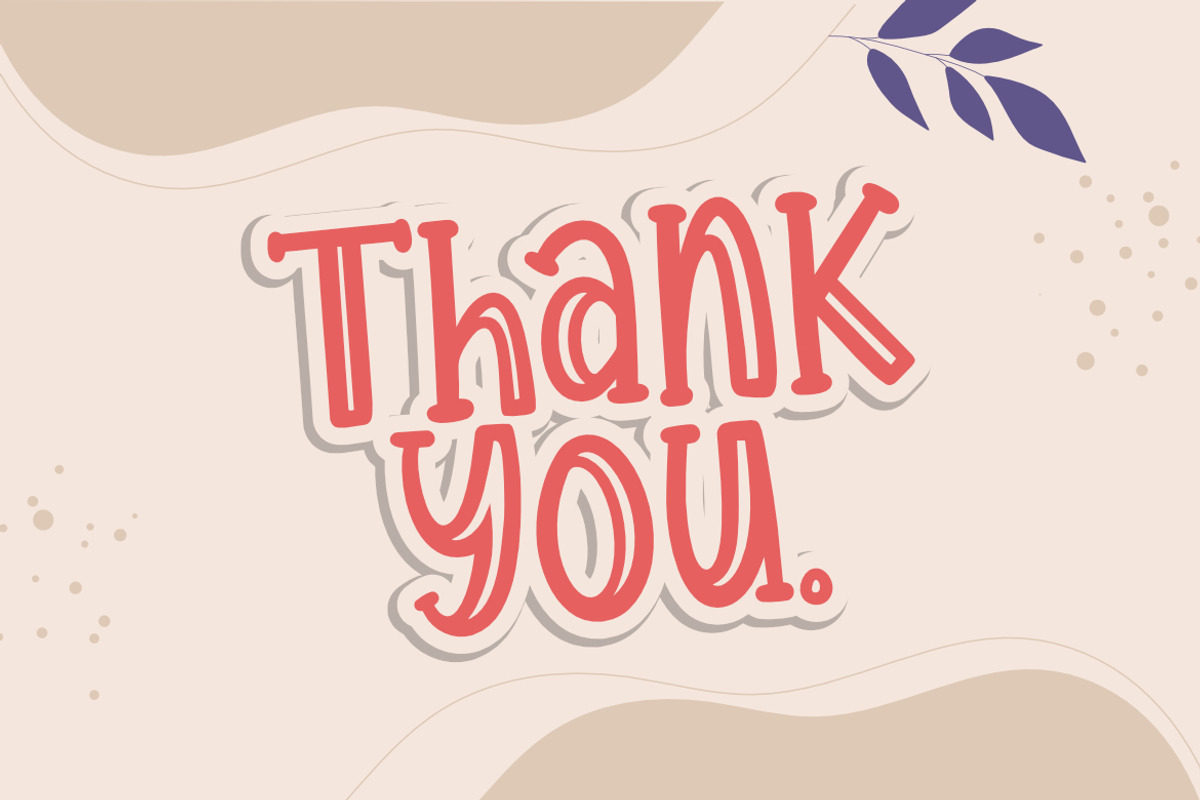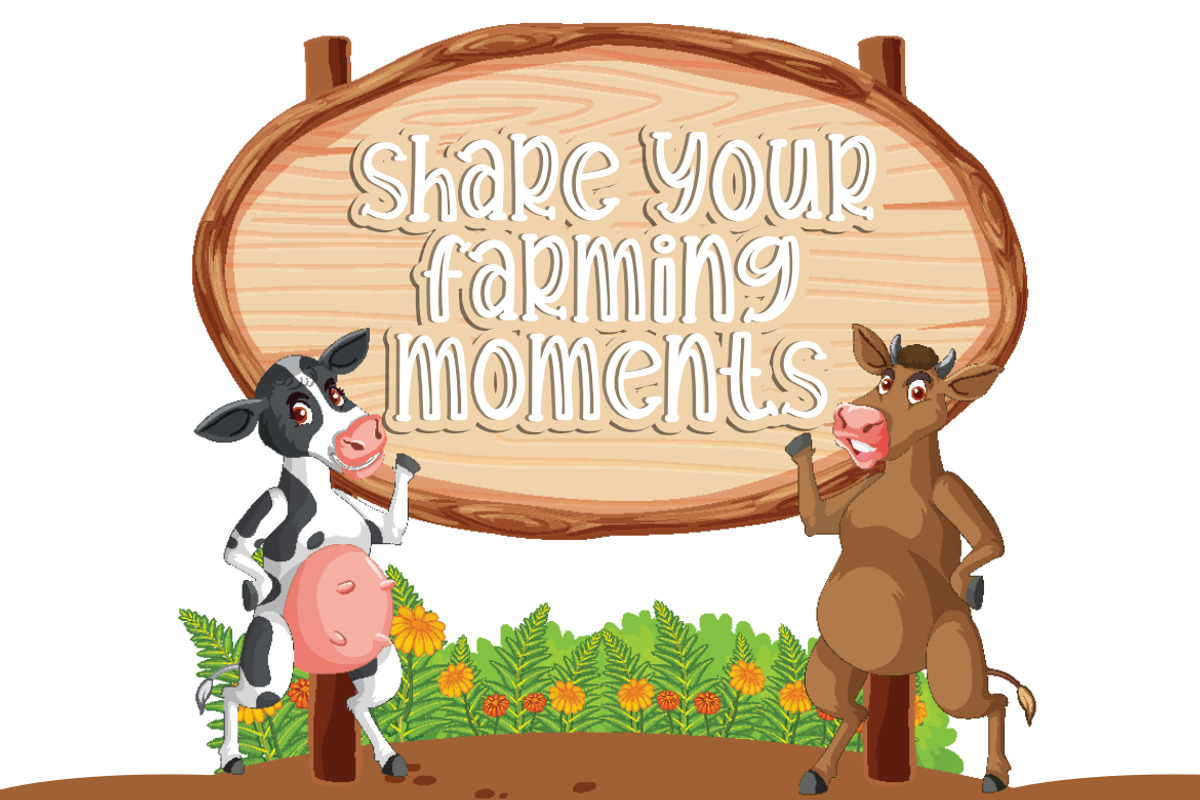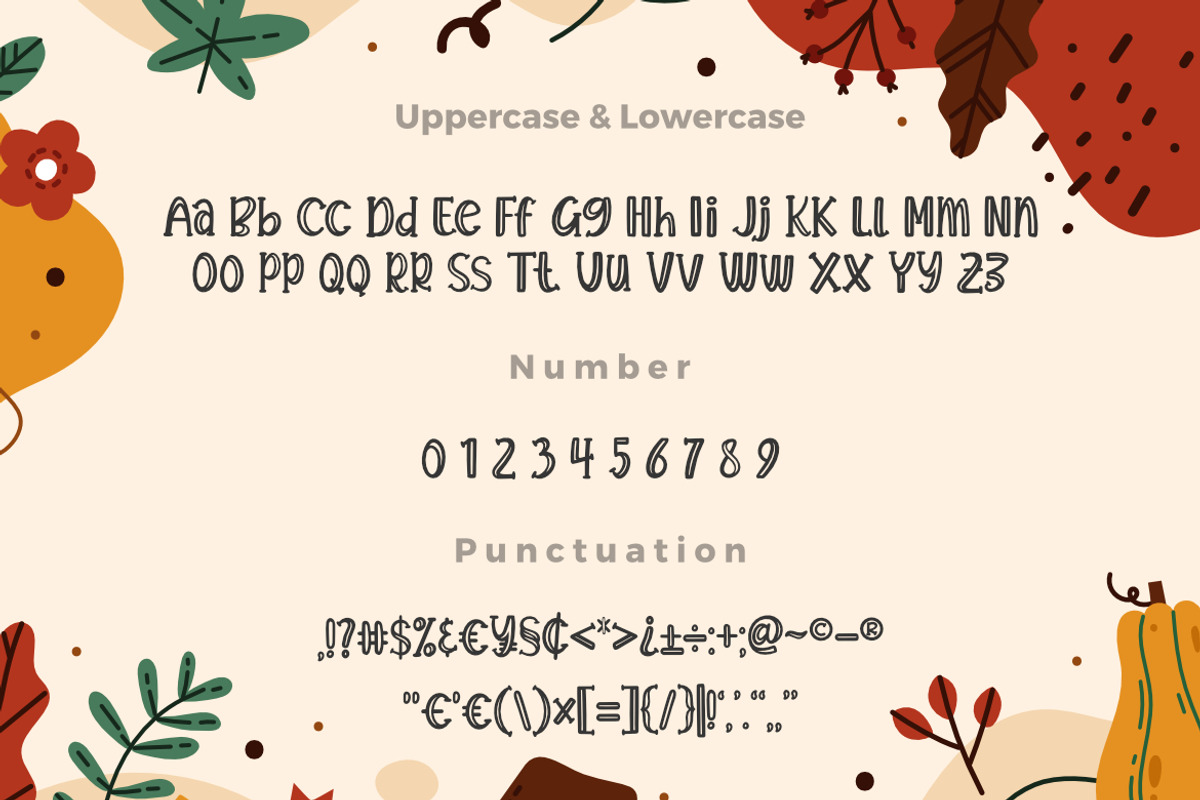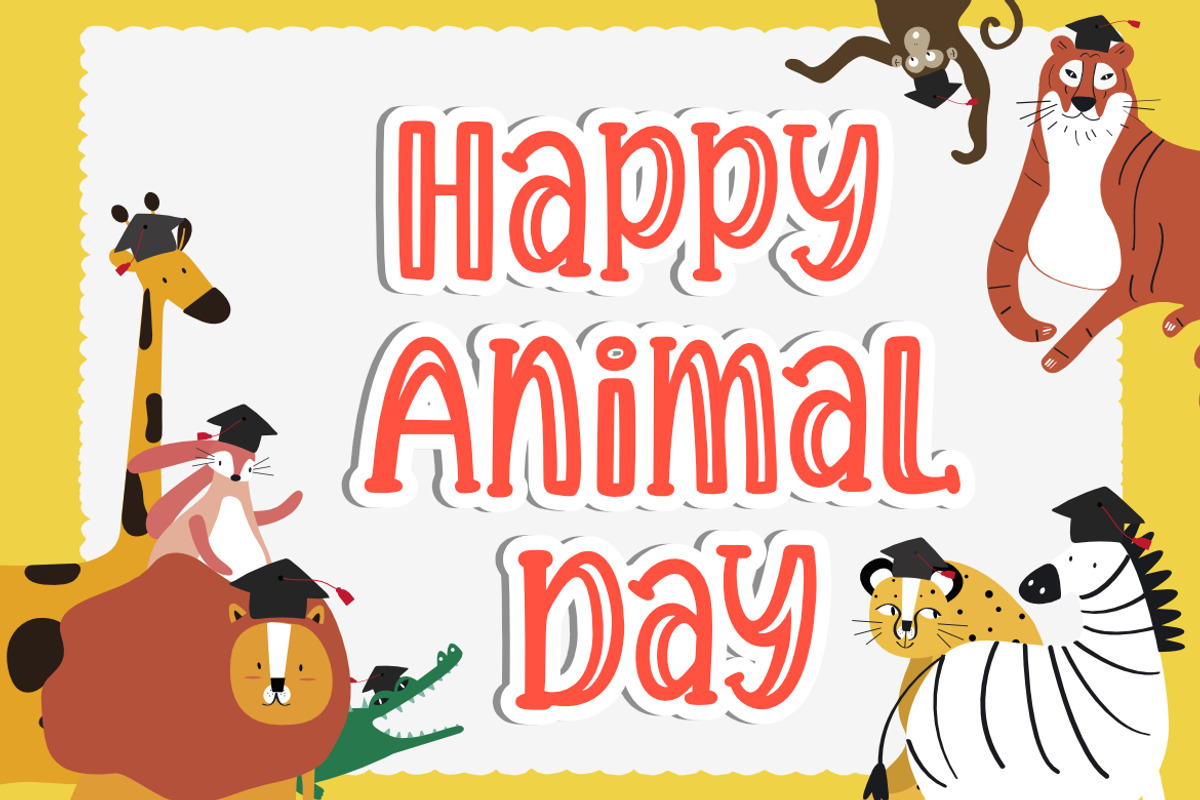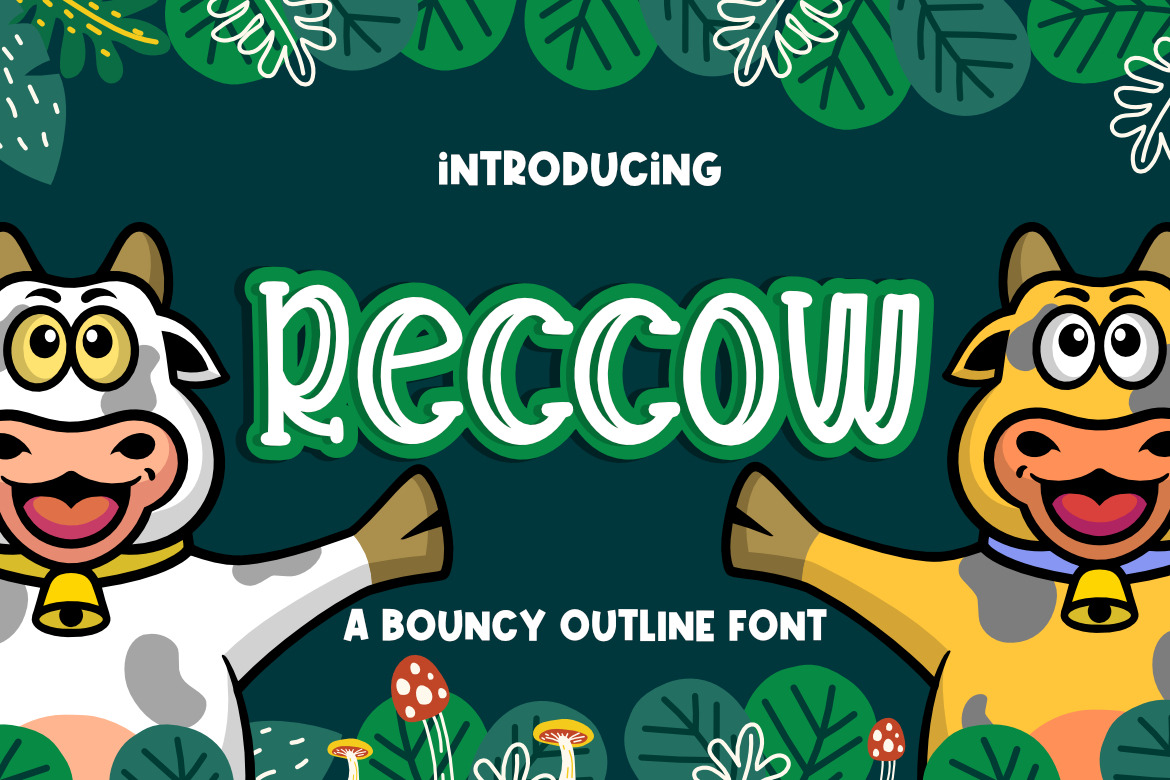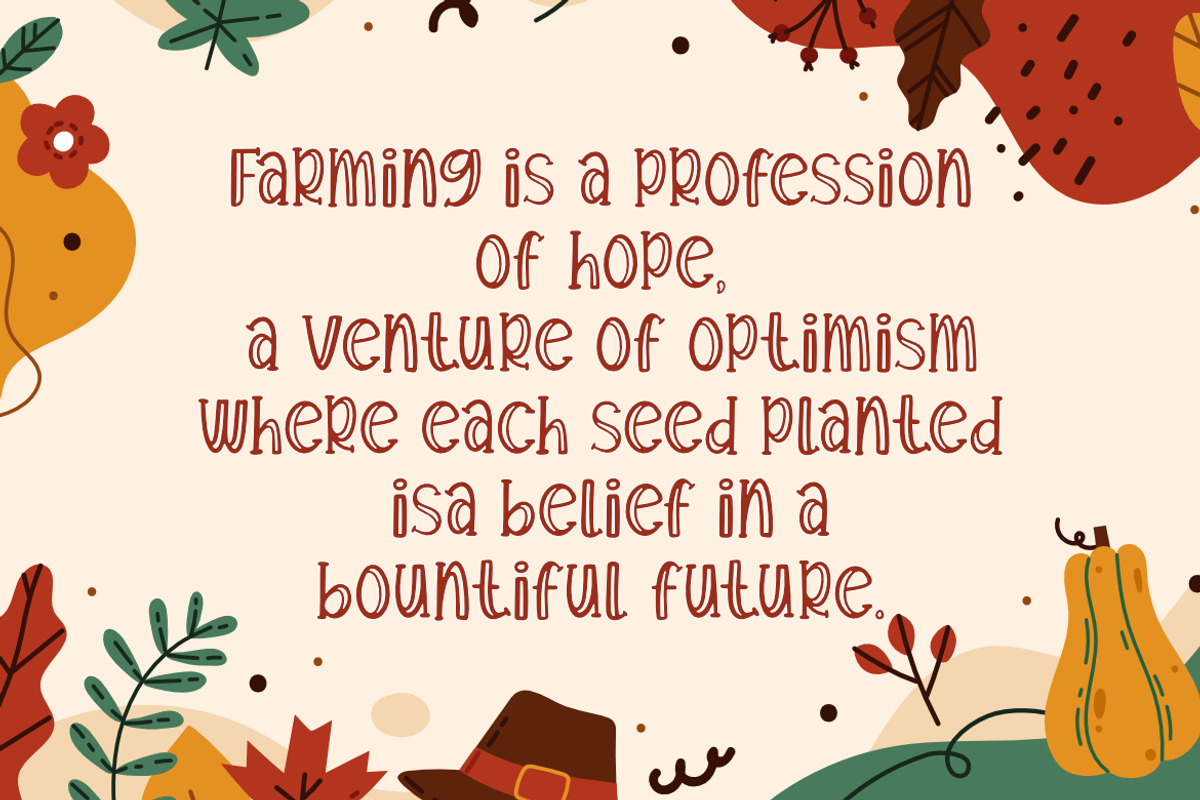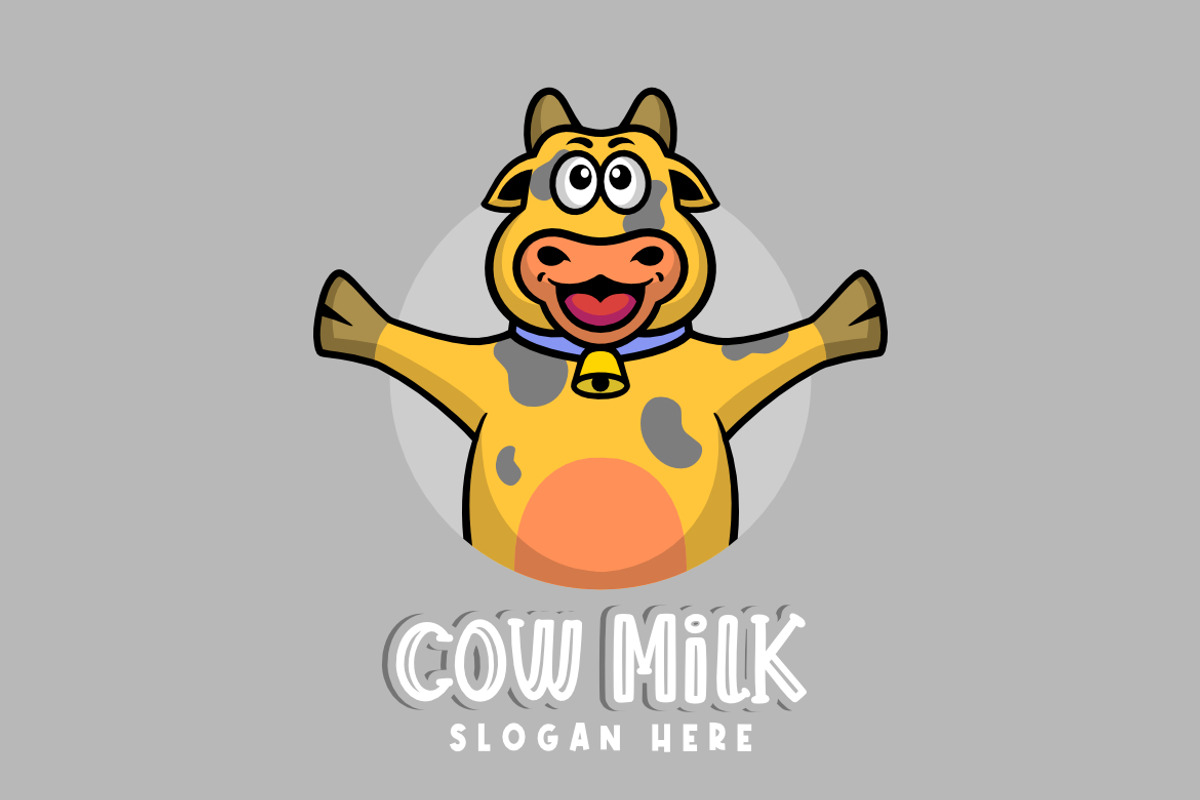
Reccow a Bouncy Outline Font
Reccow a Bouncy Outline Font, This font is made with a high premium quality level which you can use as flyers, quotes, posters, banners, packaging, merchandise, logotypes and much more.